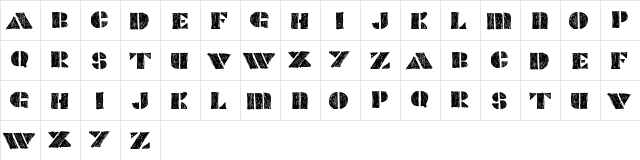
POPCORN SKETCH Copyright (c) 2011 by Billy Argel. All rights reserved. personal use only SKETCH Font Preview
| Foundry | Billy Argel |
| Designer | Billy Argel |
Design Context for POPCORN SKETCH Copyright (c) 2011 by Billy Argel. All rights reserved. personal use only Typeface
POPCORN SKETCH Copyright (c) 2011 by Billy Argel. All rights reserved. personal use only is a composed and adaptable typeface that performs quietly and consistently across a wide range of design contexts.